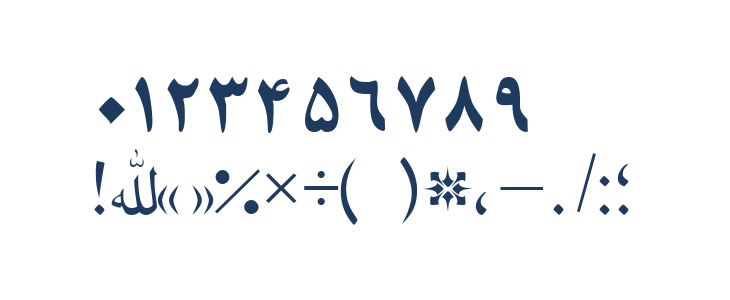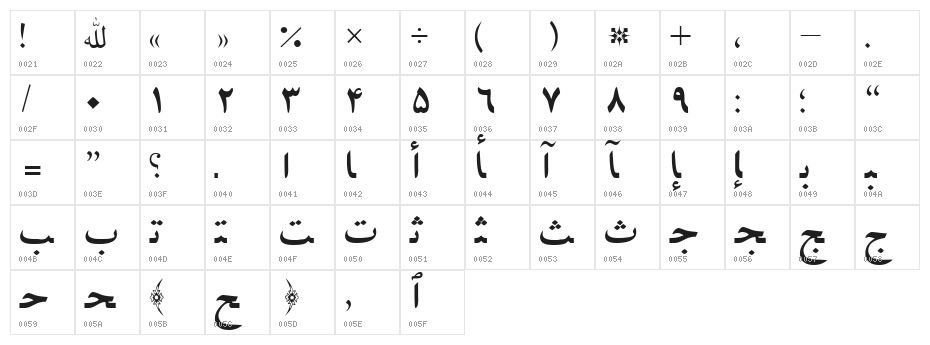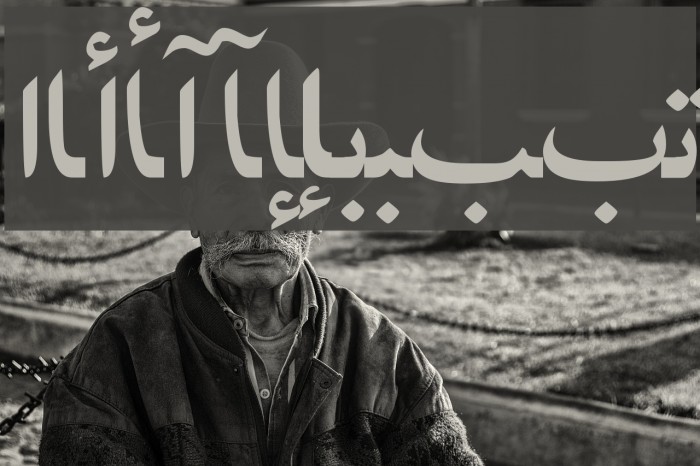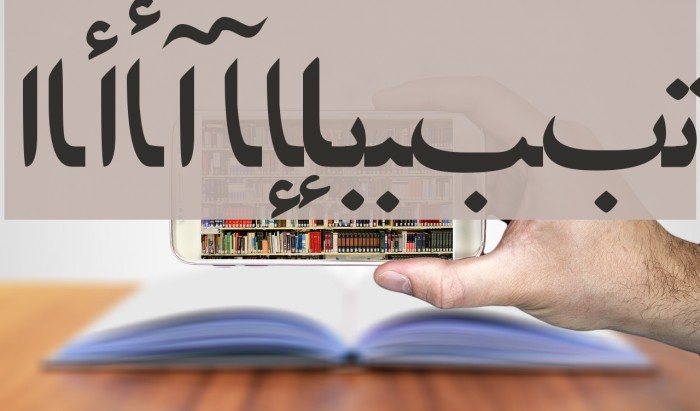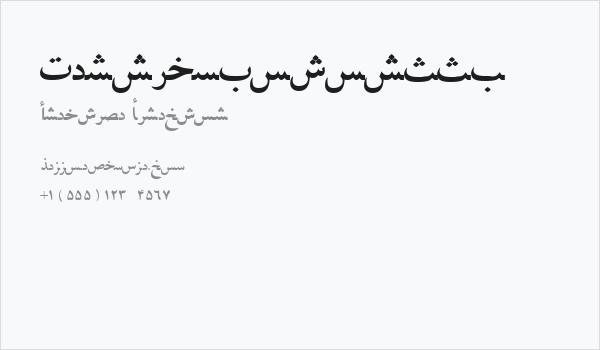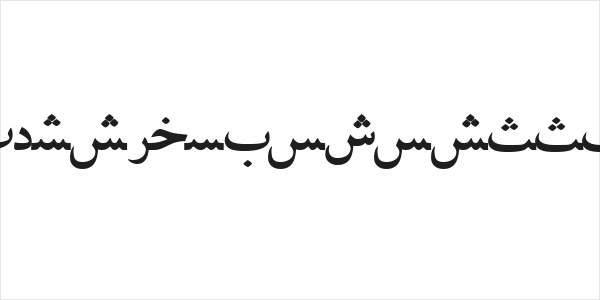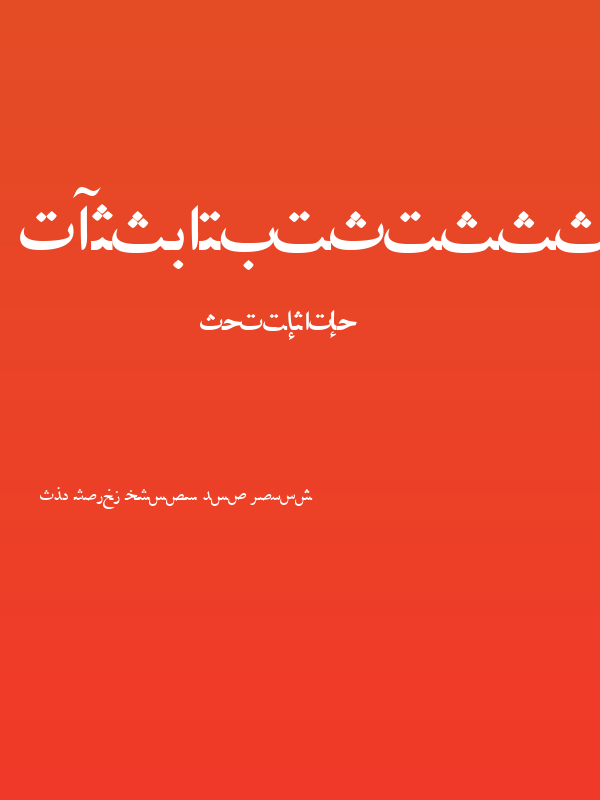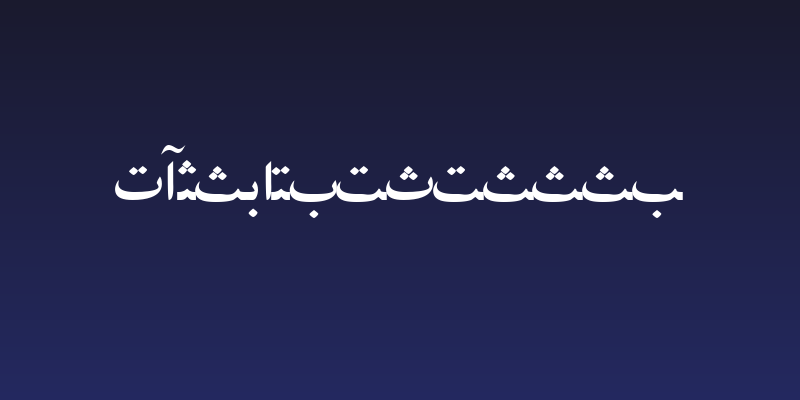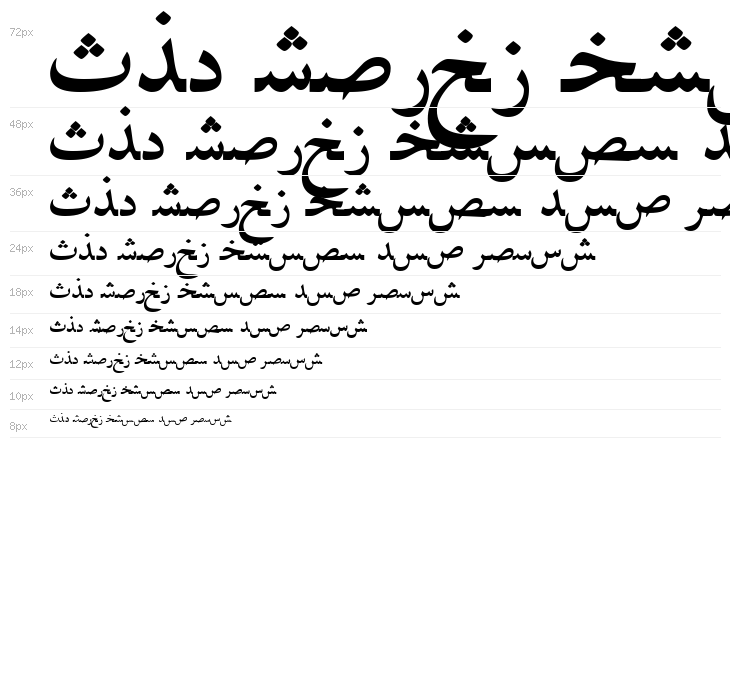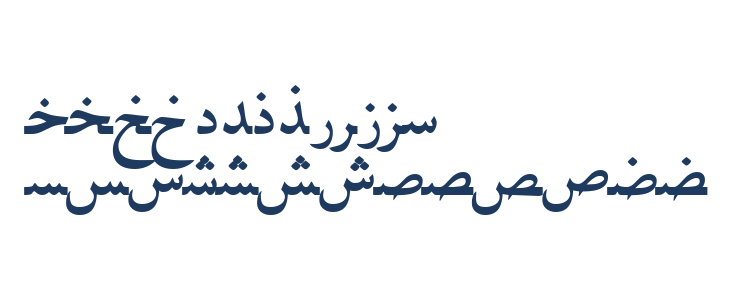
PersianLotosSSK Font
PersianLotosSSK Description
This font features a bold and striking design, characterized by its thick, prominent strokes and a sense of fluidity that is both elegant and commanding. The script is highly decorative, with intricate curves and flourishes that give it a sense of movement and dynamism. The characters are well-spaced, allowing for readability while maintaining a cohesive and unified appearance. The font's style is reminiscent of traditional calligraphy, yet it incorporates modern elements that make it suitable for contemporary use. Its unique blend of classic and modern aesthetics makes it versatile for various design projects.
| Overall Style | Classic, Decorative |